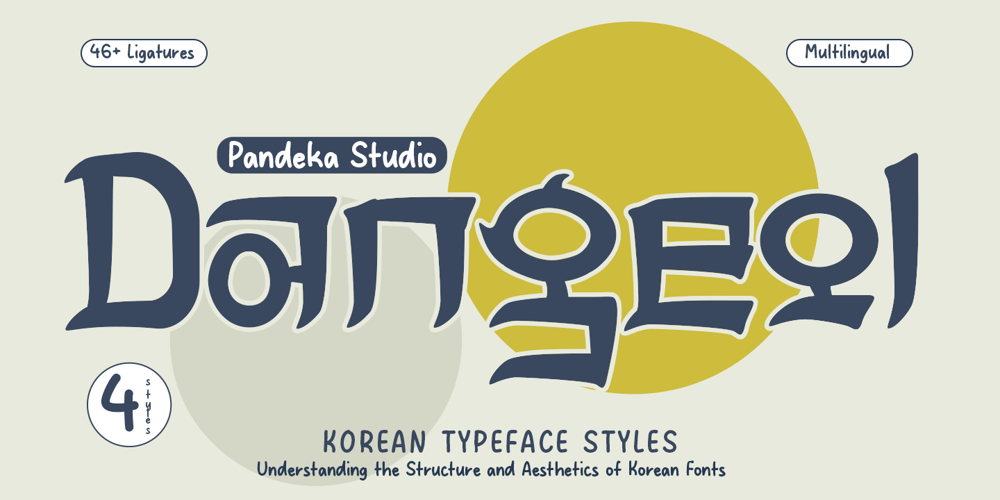
Dangeol
Dangeol font
Dangeol Font Family was designed by Sagara Nararya and published by Pandeka Studio. Dangeol contains 4 styles and family package options. Dangeol – A versatile Korean-style font with 4 unique styles (Regular, Outline, Slant, Outline Slant). Perfect for Korean-inspired designs, it blends traditional and modern aesthetics, making it ideal for bold hangul typography, elegant branding, unique lettering, and creative projects. Whether for logos, posters, or cultural themes, Dangeol adds a touch of timeless beauty and sophistication.What’s Included: Main Files formats 4 Styles: Regular, Outline, Slant, Outline Slant Full Character Set: uppercase, lowercase, numbers, symbols, punctuation and ligature 46+ Ligatures and alternates Easy to Use: Compatible with both PC & Mac Compatible with Adobe Illustrator, Photoshop, Microsoft Word, Canva, and more PUA Encoded: Fully accessible without additional software Language Support: Danish, English, Estonian, Filipino, Finnish, French, Friulian, Galician, German, Gusii, Indonesian, Irish, Italian, Luxembourgish, Norwegian Bokmål, Norwegian Nynorsk, Nyankole, Oromo, Portuguese, Romansh, Rombo, Spanish, Swedish, Swiss-German, Uzbek (Latin)Korean Styles Font Versatile Typography Traditional Modern Aesthetic Bold Hangul Elegant Design Unique LetteringThank you and happy designing!Pandeka Studio